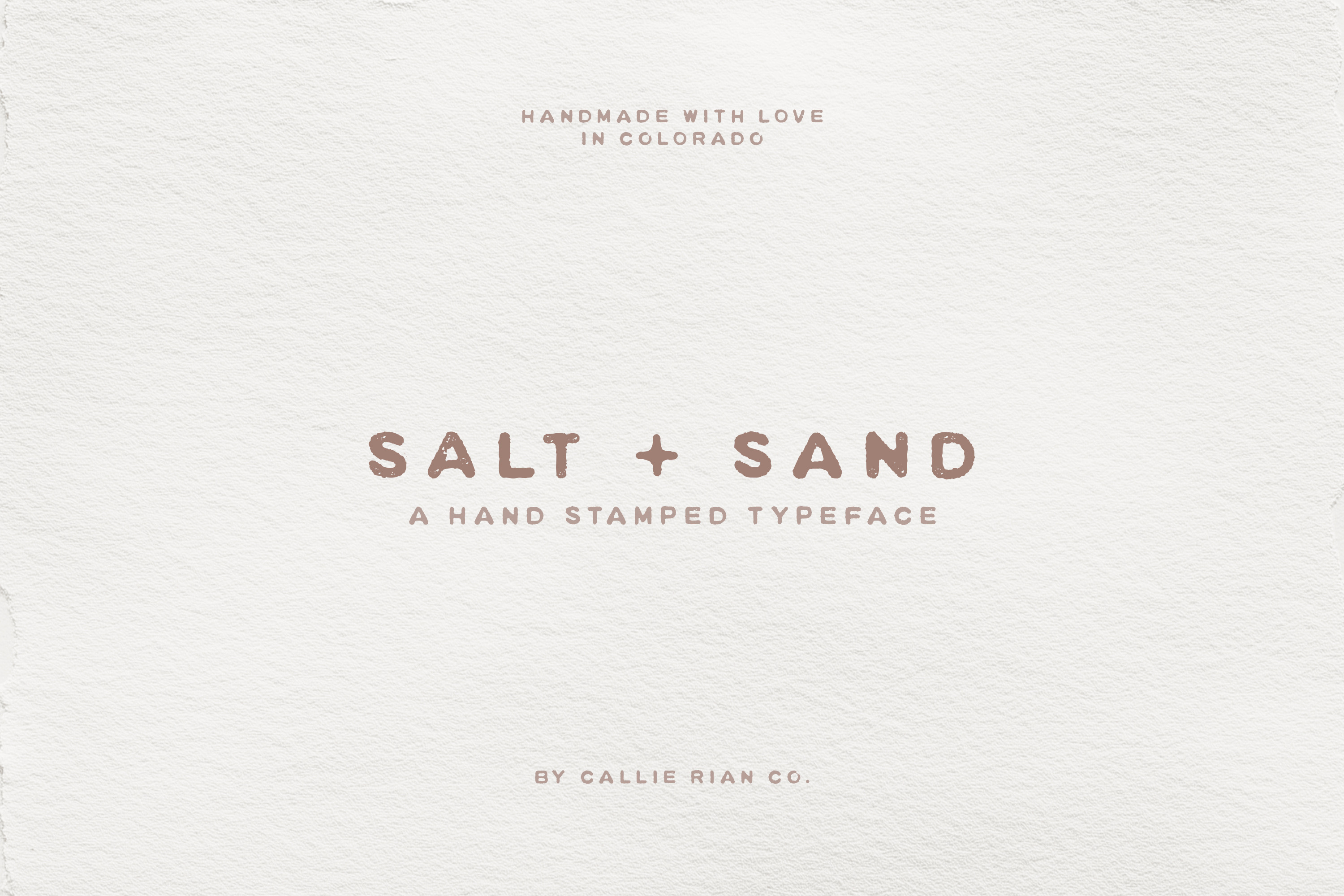
Salt + Sand | Stamped Typeface
Salt + Sand is a hand-stamped serif font with built-in texture. The irregular glyphs look gorgeous on rustic designs including books, headlines, invitations, logos and more! Pair with a subtle script for a lovely compliment to wedding invitations, packaging or branding. Featured font: Swallowtail Script
- Hand stamped & scanned characters with built-in texture.
- Standard English Character set, including numbers & punctuation.